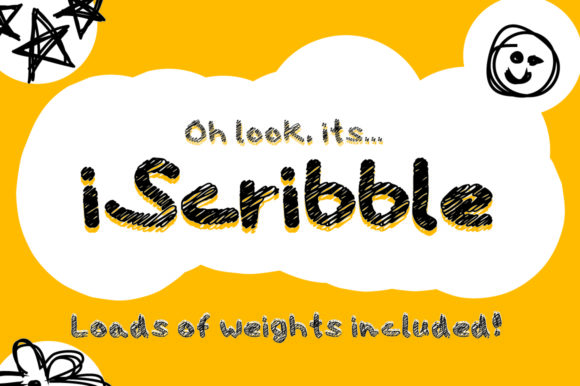
Embark on a lettering adventure like no other with Iscribble, the ultimate script font that injects a whirlwind of whimsy into your creative endeavors. Let your imagination run wild as you explore its vibrant personality, capable of transforming ordinary designs into extraordinary spectacles.
Picture this: a swirling concoction of playful strokes, each letter a lively character dancing across your screen. Iscribble's quirky charm adds a touch of lightheartedness to menus, posters, and invitations, making them impossible to resist. Its unique style guarantees that your creations will stand out from the crowd, leaving a lasting impression on all who encounter them.
Unleash your inner child and let Iscribble guide you through a world of unbridled creativity. Its versatility knows no bounds, inviting you to experiment with different colors, sizes, and combinations. Whether you're crafting a playful menu for a local bistro, designing an eye-catching poster for an upcoming event, or creating personalized invitations for a special occasion, Iscribble is your trusty companion, ready to turn your visions into tangible works of art.
Dive into the realm of Iscribble and unlock a treasure trove of possibilities. With its captivating energy and infectious personality, this remarkable font promises to ignite your passion for design and leave you craving more. So, embrace the whimsical, embrace the extraordinary, and let Iscribble take you on a creative journey you'll never forget.